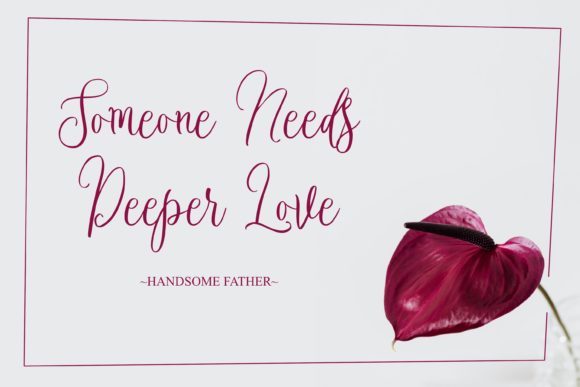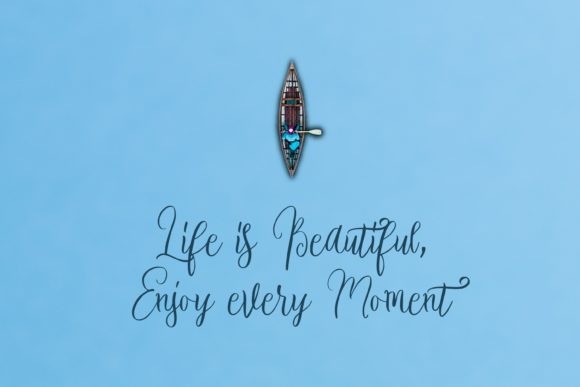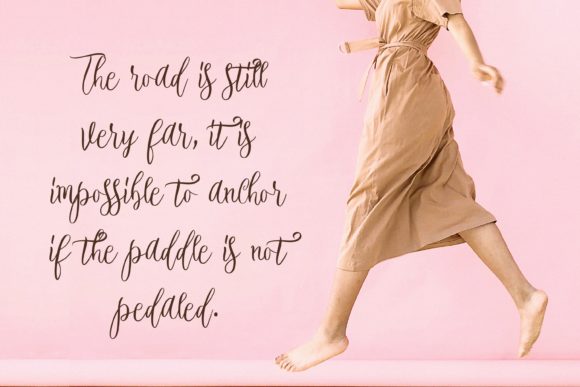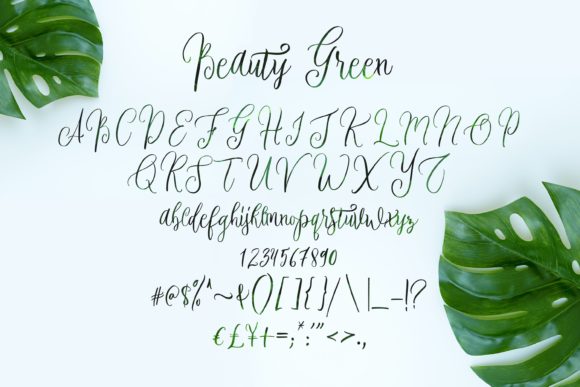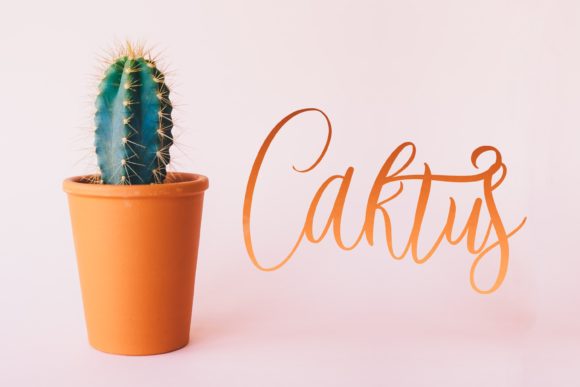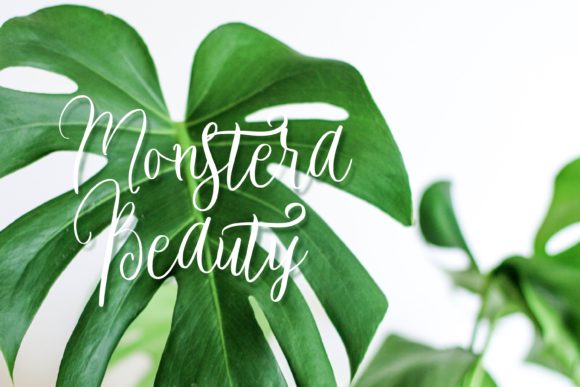
Introducing Beauty Green Font: Elevate Your Designs with Elegance
In the world of typography, a font can make or break a design. For designers and crafters seeking to add a touch of sophistication and elegance to their projects, the Beauty Green Font is an exceptional choice. This delicate, elegant, and flowing handwritten font is designed to enhance a wide range of designs, from stationery and branding to digital media and more.
What Makes Beauty Green Font Stand Out?
Beauty Green Font boasts beautiful and well-balanced characters, which are key to its versatility. Whether you’re working on a modern and minimalist project or something more traditional and ornate, this font seamlessly adapts to fit your design needs. Its elegant flow and delicate features make it perfect for creating visually appealing text that captures the essence of your message.
One of the standout features of the Beauty Green Font is its PUA (Private Use Area) encoding. This means that accessing all the glyphs and swashes is incredibly straightforward. PUA encoding allows designers to use the extended character set, including alternates and swashes, without the need for complex software or technical knowledge. This feature is especially beneficial for those who want to add a personal touch to their designs without spending hours navigating through complicated font settings.
The versatility of Beauty Green Font is one of its most compelling advantages. Its balanced and elegant design makes it suitable for a broad spectrum of projects, including:
- Stationery: Create stunning invitations, greeting cards, and letters that exude elegance and class.
- Branding: Enhance your brand’s visual identity with a font that communicates sophistication and refinement.
- Digital Media: Use Beauty Green Font in blog posts, social media graphics, and website content to add a touch of personality and style.
- Crafting Projects: Perfect for DIY enthusiasts, this font can be used in scrapbooking, journaling, and other crafting projects that require a personal and aesthetic touch.
Why Choose Beauty Green Font?
For designers and crafters looking for a font that combines elegance with functionality, Beauty Green Font ticks all the boxes. Here are a few reasons why it should be at the top of your list:
- Elegant and Versatile: Its delicate and flowing design makes it suitable for a wide range of projects.
- Easy to Use: PUA encoding ensures that you can easily access and use all the glyphs and swashes.
- High-Quality Design: Professionally crafted to provide a beautiful and consistent look across all your designs.
Beauty Green Font is more than just a typeface; it’s a design tool that can elevate your projects to new heights of elegance and sophistication. Whether you’re a professional designer or a crafting enthusiast, this font offers the perfect blend of beauty, versatility, and ease of use. With Beauty Green Font, you can create stunning designs that not only look great but also convey your message with style and grace.